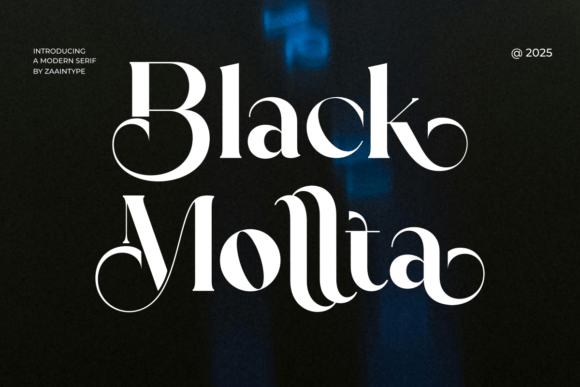
Introducing Black Mollta Font: The Epitome of Elegance and Modernity
In the realm of typography, few fonts manage to strike a balance between classic sophistication and modern boldness. Black Mollta Font is one such exceptional typeface that seamlessly blends the elegance of traditional serif fonts with the striking contrast of modern design. This high-contrast serif font is not just a typographical innovation; it’s an artistic statement that elevates any design it touches, making it perfect for premium branding, editorial content, fashion, and luxury design projects.
The Distinctive Features of Black Mollta Font
Black Mollta’s distinctive feature lies in its striking thick-thin contrast, which gives it a high level of legibility while imparting a sense of drama and luxury. This contrast is not just visually appealing; it also adds a layer of sophistication to any text, making it stand out in a crowded design landscape. The font’s design is meticulously crafted to ensure that it remains elegant and readable, even at smaller sizes, making it versatile for use in both body text and headlines.
Variety and Versatility: The Two Styles of Black Mollta
Understanding the diverse needs of designers and the varying demands of different projects, Black Mollta Font is available in two distinct styles: Regular and Oblique.
1. Black Mollta Regular: Elegance and Readability
The Regular style of Black Mollta strikes a perfect balance between elegance and readability. Its well-proportioned letters and carefully considered spacing make it an ideal choice for main text and headlines where clarity and sophistication are paramount. This style is versatile, capable of enhancing the visual appeal of a wide range of designs, from luxury brand identities to high-end editorial content.
2. Black Mollta Oblique: Dynamic and Stylish
For projects that require a bit more flair and dynamism, the Oblique style of Black Mollta is the perfect solution. This slanted version adds a modern and stylish feel to designs, making it perfect for more expressive and creative projects. The Oblique style retains the elegance and readability of its counterpart while injecting a sense of movement and energy, ideal for fashion designs, luxury editorials, and any project that demands a bit more personality.
Applications of Black Mollta Font
The versatility and aesthetic appeal of Black Mollta Font make it suitable for a variety of applications:
1. Premium Branding
In the world of branding, first impressions are everything. Black Mollta’s luxurious and sophisticated vibe makes it an excellent choice for premium brands looking to make a statement. Whether it’s for a logo, packaging, or brand collateral, this font can help convey a sense of high quality and elegance.
2. Editorial Design
For editorial designs, such as magazines, newspapers, and books, Black Mollta can add a touch of sophistication and class. Its readability ensures that body text is easy to read, while its contrast makes headlines pop, creating a visually appealing reading experience.
3. Fashion and Luxury Design
The fashion and luxury sectors often demand designs that exude elegance, style, and a sense of exclusivity. Black Mollta Font, with its high-contrast features and stylish oblique version, is perfectly suited for these industries. It can elevate fashion editorials, brand identities, and marketing materials, making them stand out with a unique blend of classic and contemporary flair.
Why Choose Black Mollta Font?
Choosing Black Mollta Font for your design projects comes with several advantages:
1. Unique Aesthetic
Its high-contrast serif design offers a unique aesthetic that can set your designs apart from the crowd.
2. Versatility
Available in two styles, Regular and Oblique, it offers flexibility for a wide range of design needs.
3. Readability and Elegance
It strikes an excellent balance between readability and elegance, making it suitable for both body text and headlines.
4. Professional and Luxurious Feel
It imparts a professional and luxurious feel to designs, making it ideal for premium branding and luxury projects.
Black Mollta Font is a remarkable typeface that brings together the best of classic elegance and modern design. Its high-contrast features, combined with its availability in two distinct styles, make it an incredibly versatile tool for designers. Whether you’re working on premium branding, editorial content, fashion, or luxury design projects, Black Mollta can help elevate your designs to new heights of sophistication and style. With its unique aesthetic, versatility, readability, and professional feel, Black Mollta Font is an excellent addition to any designer’s typography arsenal.
FAQs about Black Mollta Font
1. What makes Black Mollta Font unique?
Black Mollta Font is unique due to its high-contrast serif design, blending classic elegance with a bold modern touch.
3. Is Black Mollta Font available in different styles?
Yes, Black Mollta Font is available in two styles: Regular and Oblique.